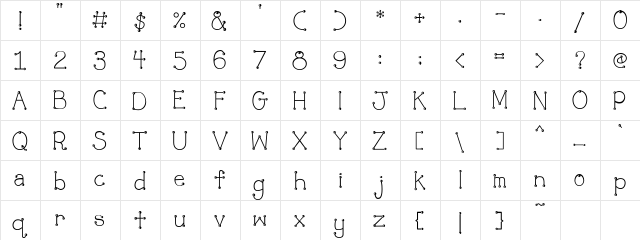
DJ Finch Knobs Regular Font Preview
DJ Finch Knobs Regular
Design Context for DJ Finch Knobs Typeface
DJ Finch Knobs takes a measured approach to typography — its balanced proportions and neutral character make it a reliable workhorse for both digital and print work.